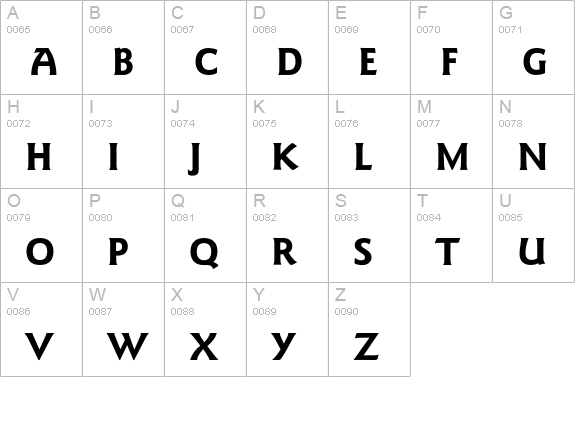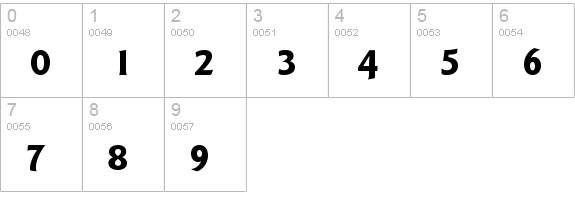
GoudySansEF-Bold is a strong, high-contrast variant in the GoudySansEF typeface family \xE2\x80\x94 well suited to headlines, attention-grabbing titles, and strong calls-to-action.
GoudySansEF-Bold is a striking and versatile sans-serif font that exudes confidence and modernity. With its bold weight and clean lines, this font is perfect for making a statement in headlines, titles, and branding materials. The strong and impactful design of GoudySansEF-Bold ensures that your message will stand out and leave a lasting impression on your audience. What makes GoudySansEF-Bold even more appealing is that it is available for free download at FontsMarket.com. This means that you can easily access this high-quality font without any cost, making it a valuable addition to your font library. Whether you are a designer, marketer, or creative professional, GoudySansEF-Bold is a reliable choice for projects that require a bold and contemporary aesthetic. Elevate your designs with GoudySansEF-Bold today and make a bold statement with ease.